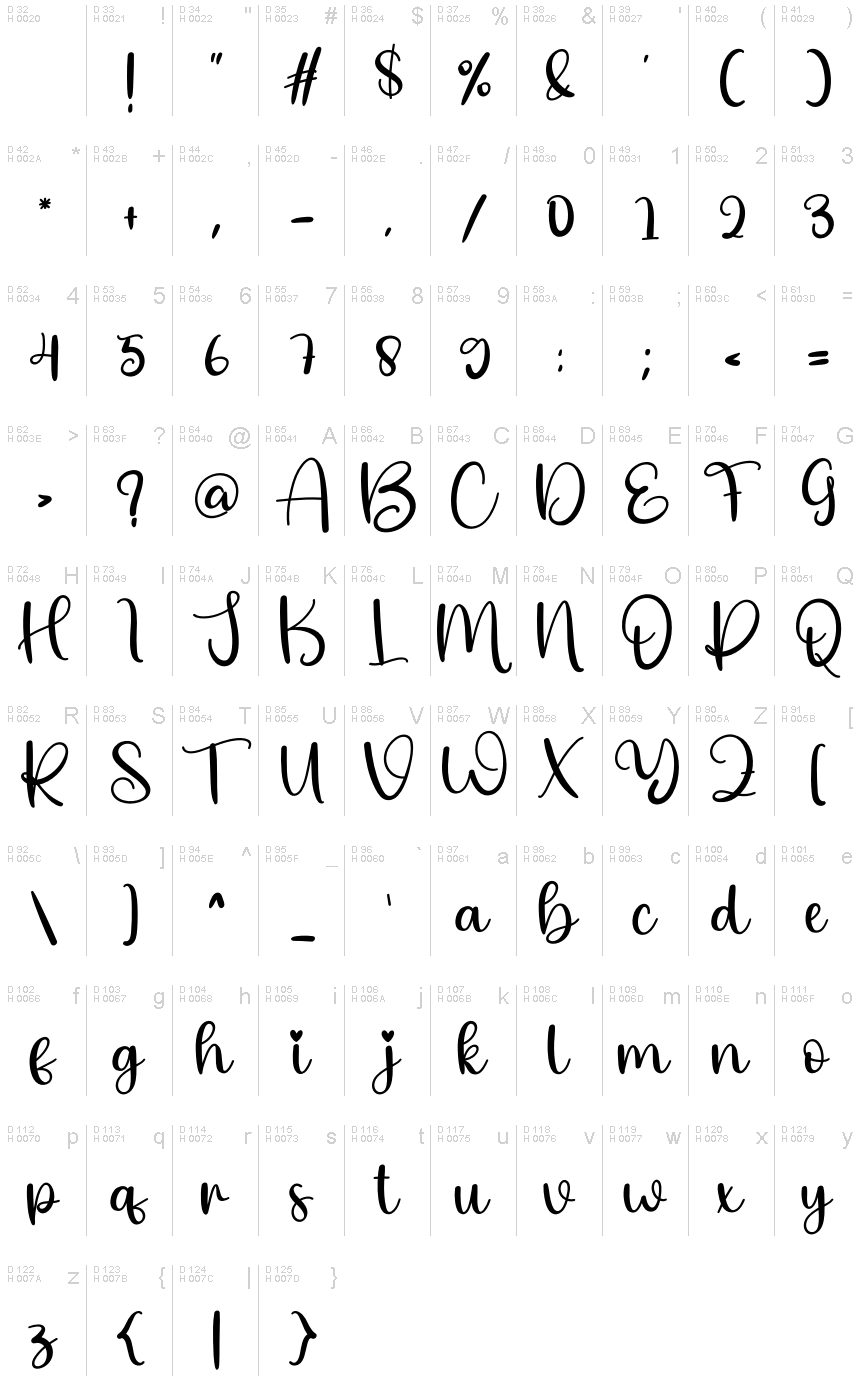
Again
Again, a captivating handwritten font by Scratchones, brings a touch of elegance and personalization to your projects.
With its unique strokes and charming imperfections, this font adds a delightful flair to wedding invitations, greeting cards, and stationery. Its versatility also extends to logo designs for boutique businesses or artisanal products. For blog headers or social media graphics, Again's playful yet sophisticated vibe makes it ideal for lifestyle and fashion blogs.
Embrace the beauty of handwritten fonts with Again and elevate your creative ventures with its timeless appeal.